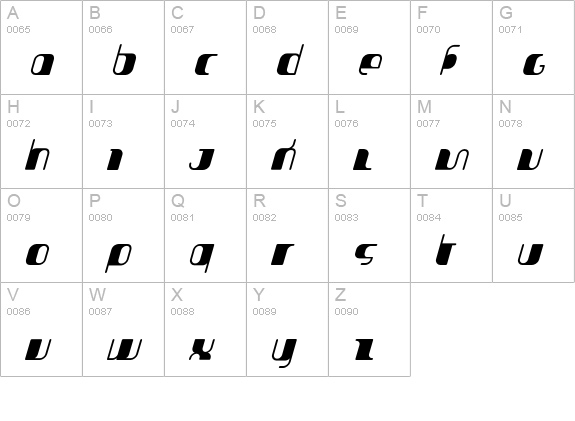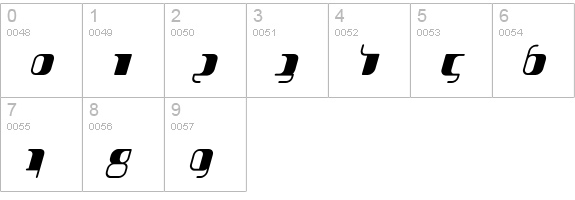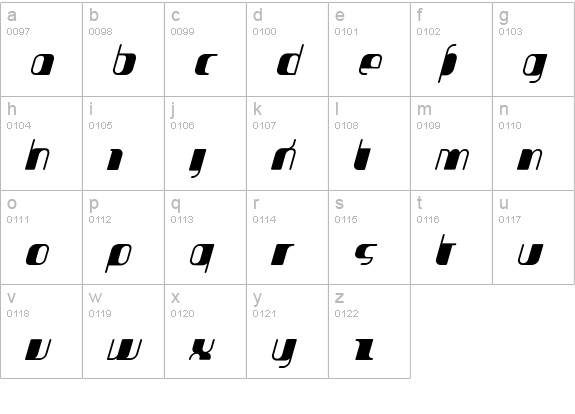
Jakone-CondensedBoldItalic font is a stunning and versatile typeface that exudes elegance and sophistication. Its condensed design adds a touch of modernity, making it perfect for a wide range of design projects, from logos and headlines to posters and invitations. The bold and italic styles of Jakone-CondensedBoldItalic font create a beautiful contrast, allowing for captivating and eye-catching typography. The boldness adds a sense of strength and power, while the italic styling adds a touch of dynamism and movement. This font is meticulously crafted with attention to detail, resulting in crisp and clear letterforms that are easy to read even at smaller sizes. The refined curves and sharp edges give Jakone-CondensedBoldItalic font a polished and professional look. One of the best features of Jakone-CondensedBoldItalic font is that it is free. Yes, you read that right! This top-quality font is freely available to download at FontsMarket.com. Whether you are a professional designer or a budding creative, you can now enhance your projects with this exceptional font without breaking the bank. With Jakone-CondensedBoldItalic font, you have the freedom to explore your creativity and create designs that truly stand out. Its versatility and aesthetic appeal make it a go-to choice for designers looking to add a touch of sophistication to their work. So, why wait? Download Jakone-CondensedBoldItalic font for free at FontsMarket.com and elevate your designs to new heights. Whether you are designing a logo for a high-end brand or creating an eye-catching poster, this font will undoubtedly make a lasting impression.